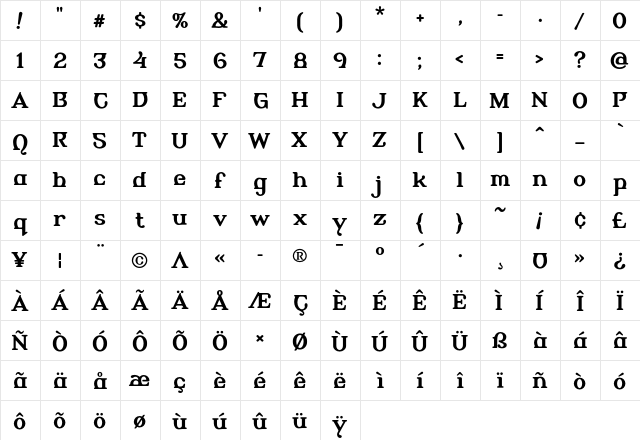
AlembicBeta-BoldOne Regular
Design Context for AlembicBeta-BoldOne Typeface
AlembicBeta-BoldOne offers clean, dependable letterforms without strong stylistic allegiance, making it a practical choice for designers who need flexibility. The heavy weight commands attention and anchors typographic hierarchies.